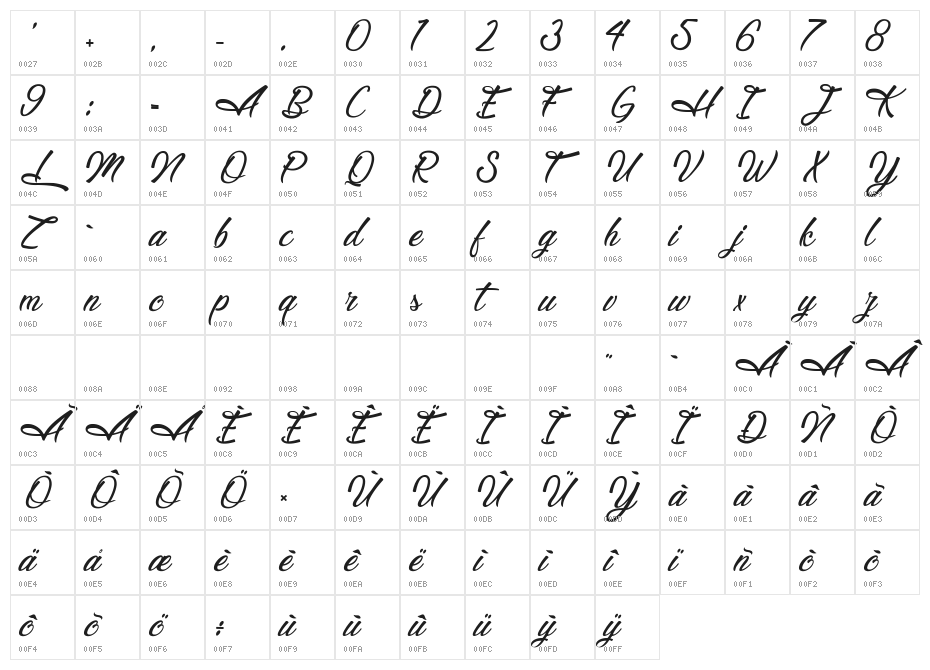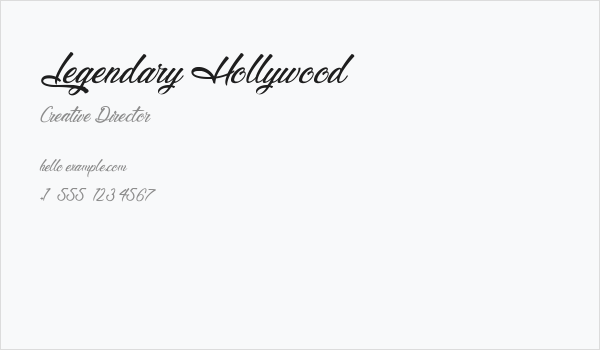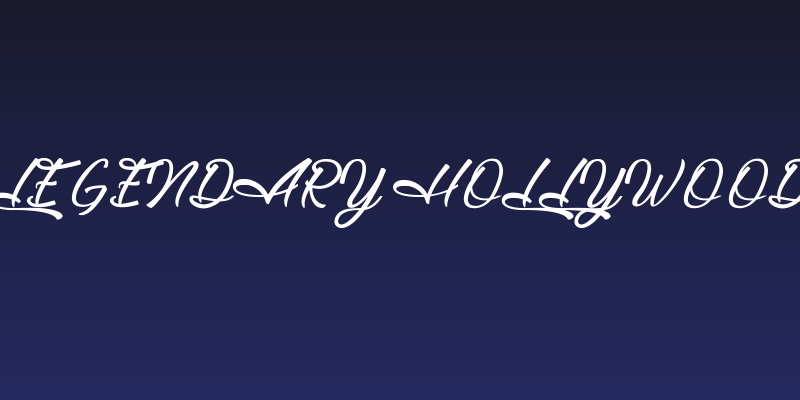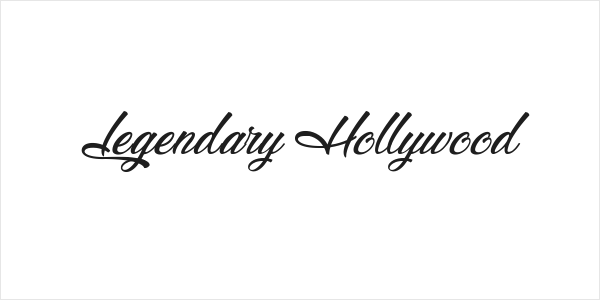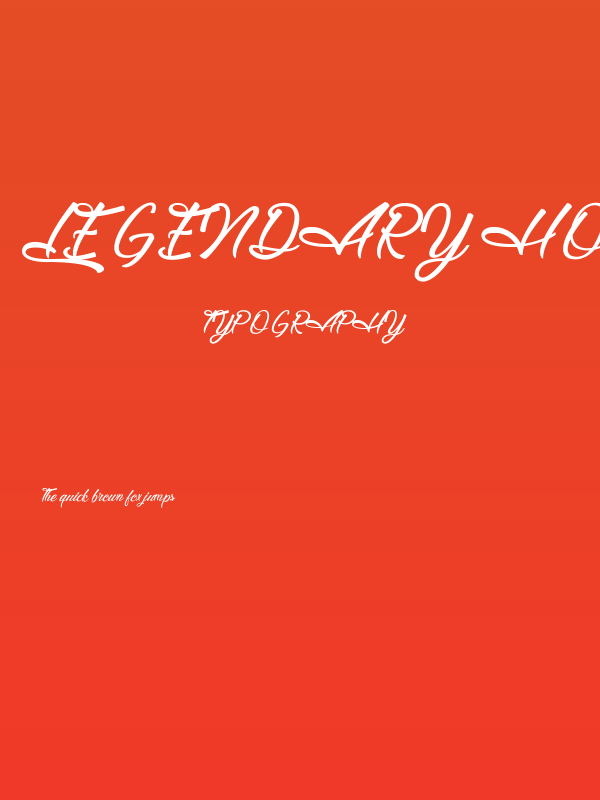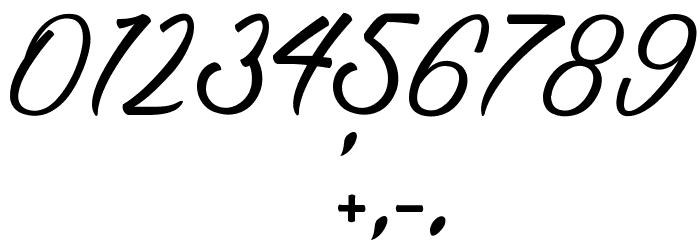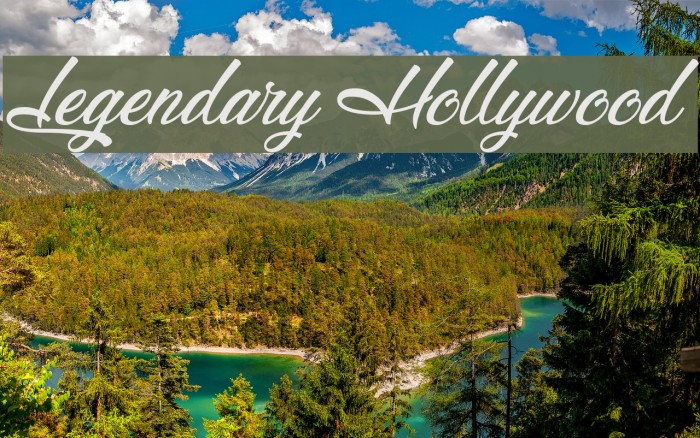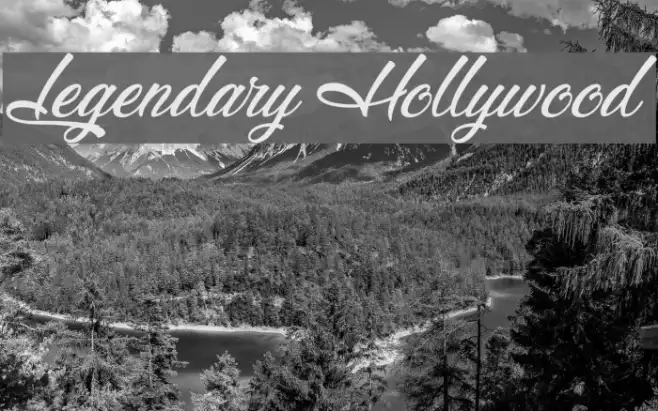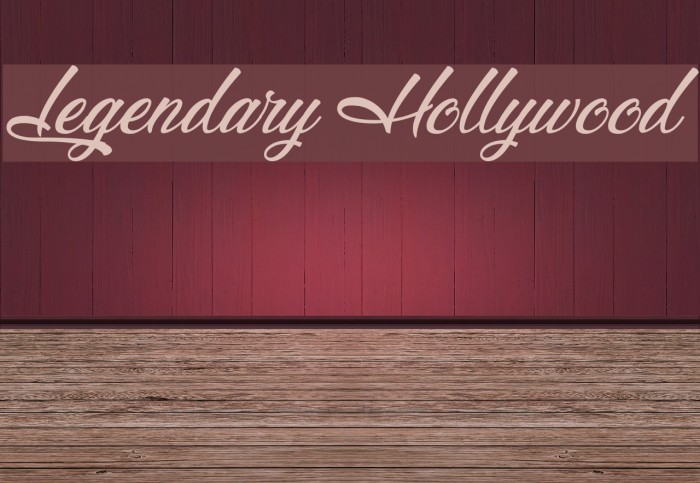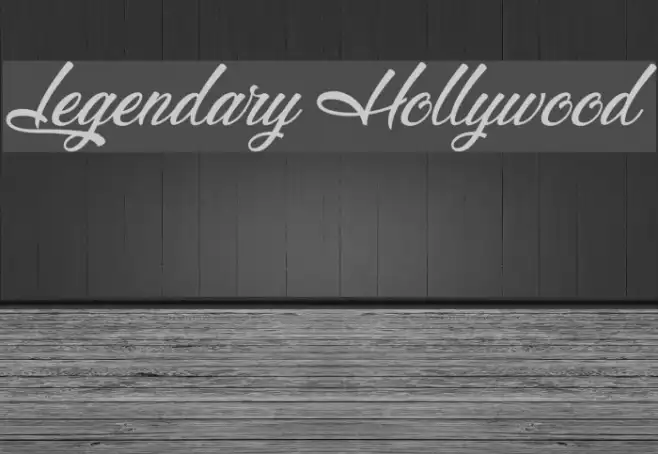
Legendary Hollywood Font
Legendary Hollywood Description
This font exudes a classic, elegant script style reminiscent of vintage Hollywood glamour. The characters are intricately designed with flowing, cursive strokes that convey a sense of sophistication and grace. The uppercase letters are particularly ornate, featuring dramatic flourishes and loops that add to the font's decorative appeal. The lowercase letters maintain a consistent style, with smooth, connected strokes that enhance readability while preserving the font's artistic flair. The numerals and special characters are equally well-crafted, ensuring a cohesive look across all text elements.